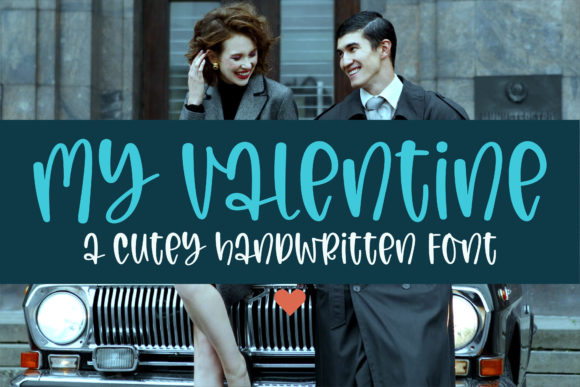
My Valentine is a delightful and captivating display font that adds a fresh and ravishing touch to your designs. With its natural and friendly style, it is incredibly versatile and suitable for a wide range of design projects. The possibilities are endless, and the only limit is your imagination!
The unique charm of My Valentine lies in its handcrafted appearance and playful character. Each letter carries a sense of warmth and authenticity, making it perfect for adding a personal and heartfelt touch to your designs. Whether you’re designing greeting cards, invitations, posters, or social media graphics, My Valentine will infuse your projects with a sense of joy and affection.
The versatility of My Valentine allows it to adapt to various design themes and purposes. It can be used to create romantic Valentine’s Day cards, love-themed artwork, or even branding materials for businesses that embrace a friendly and approachable aesthetic. Its natural style lends itself well to projects that require a warm and inviting tone.
Moreover, My Valentine is a display font that commands attention. Its unique letterforms and playful design make it stand out in headlines, titles, or any other prominent text elements. Use it to create eye-catching logos, attention-grabbing banners, or striking packaging designs that will captivate your audience.
One of the advantages of My Valentine is its versatility in both digital and print media. It looks great on screen for digital designs, and its intricate details shine when printed on various materials. Whether you’re creating designs for websites, social media, or physical products, My Valentine will bring a fresh and ravishing flair to your projects.
With My Valentine, you have the freedom to explore and experiment with different design ideas. Its natural and friendly style encourages creativity and allows you to express your unique vision. You can combine it with other fonts to create beautiful typographic compositions or use it as the main focal point of your design.
In summary, My Valentine is a fresh and ravishing display font that brings a natural and friendly style to your designs. Its versatility allows it to be used in a wide range of projects, from greeting cards and invitations to branding materials and digital graphics. Let your imagination run wild and watch as My Valentine adds a touch of charm and joy to your creative endeavors.